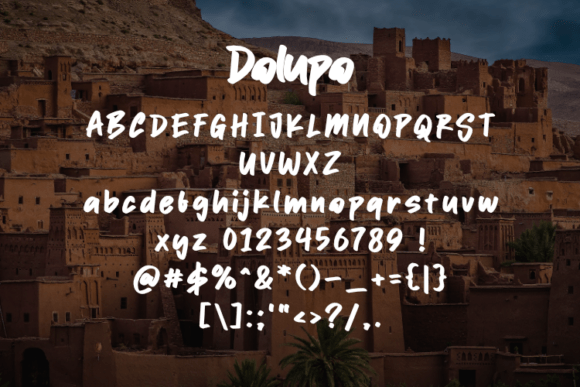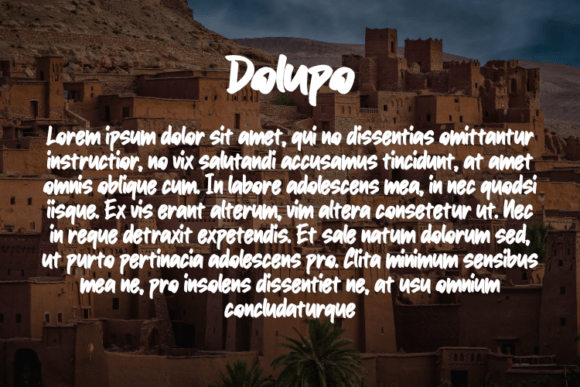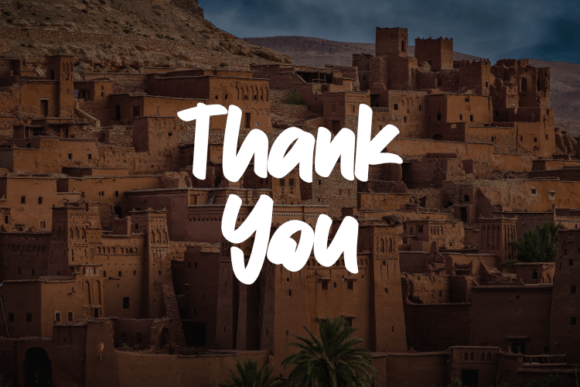
Introducing Dolupo: The Ultimate Font for Creative Apparel and Product Design
Are you tired of using the same old fonts for your creative projects? Look no further! We’re excited to introduce Dolupo, a versatile and innovative font that’s specifically designed to elevate your apparel and product designs. With its unique ability to mold itself perfectly into any creative project, Dolupo is set to become your new favorite font.
Unlock Endless Creative Possibilities
Dolupo is more than just a font – it’s a creative catalyst. With its clean lines, elegant curves, and highly legible design, Dolupo provides the perfect stroke of inspiration for your bespoke t-shirts, original product designs, and more. Whether you’re a seasoned designer or a crafty entrepreneur, Dolupo offers limitless possibilities for bringing your creative vision to life.
Perfect for Apparel and Product Design
Dolupo’s versatility makes it an ideal choice for a wide range of creative projects, from custom apparel to product design. Its highly legible design ensures that your message or branding is conveyed clearly, even at smaller font sizes. This makes Dolupo perfect for designing:
- Custom t-shirts and hoodies
- Personalized mugs and water bottles
- Branded tote bags and accessories
- Unique product labels and packaging
Tips for Getting the Most Out of Dolupo
To help you get started with Dolupo, here are a few tips for incorporating the font into your design workflow:
- Experiment with different font sizes and styles to find the perfect fit for your design
- Pair Dolupo with other fonts to create unique and eye-catching combinations
- Use Dolupo for both headlines and body text to create a cohesive look
- Don’t be afraid to get creative and try out new and innovative design ideas
In conclusion, Dolupo is a game-changing font that’s specifically designed to elevate your creative apparel and product designs. With its seamless compatibility, flexible file formats, and highly legible design, Dolupo offers limitless possibilities for bringing your creative vision to life. Whether you’re a seasoned designer or a crafty entrepreneur, Dolupo is the perfect addition to your design toolkit.